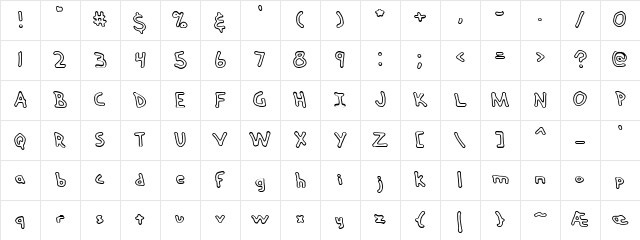
Hand Me Down O (BRK) Regular Free Font
Hand Me Down O (BRK) Regular
Design Context for Hand Me Down O (BRK)
Hand Me Down O (BRK) flows with the natural rhythm of handwritten lettering, making it ideal for designs that call for warmth and personal expression.